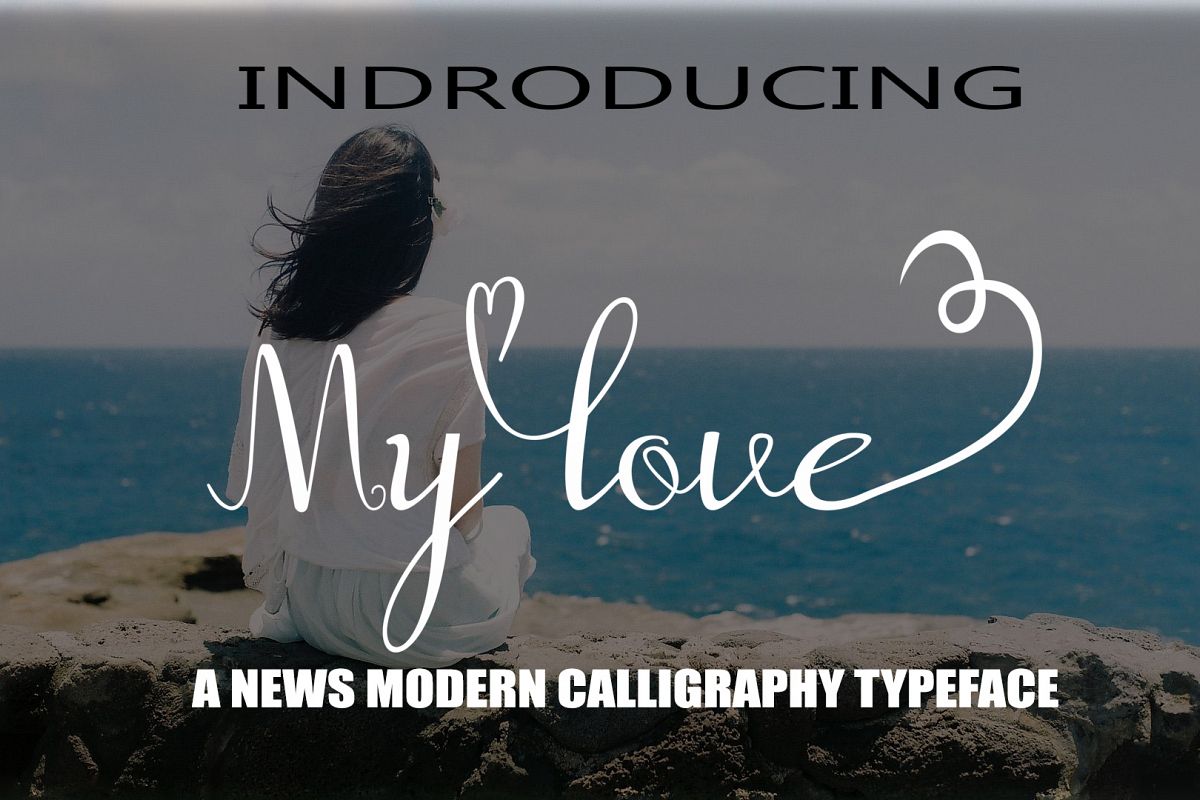
My love
My love Modern Calligraphy. This font was designed by handwriting, and it has a modern and unique forms of calligraphy, the writing style is very natural.The Features of this fonts is;
• Standart ligatures
• Contextual Alternates
• Stylistic sets
• swash